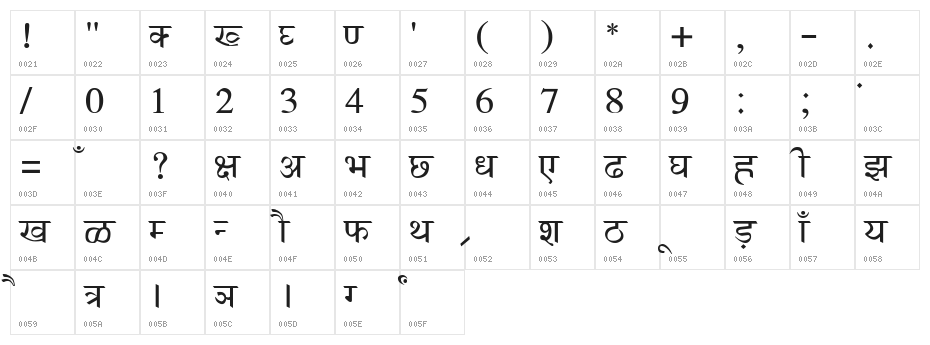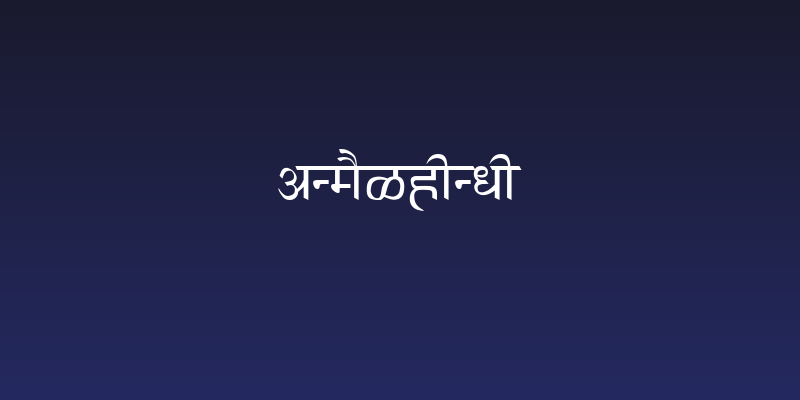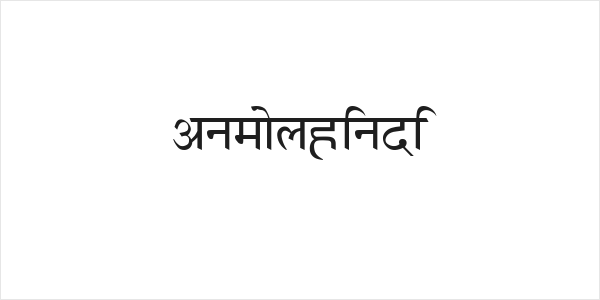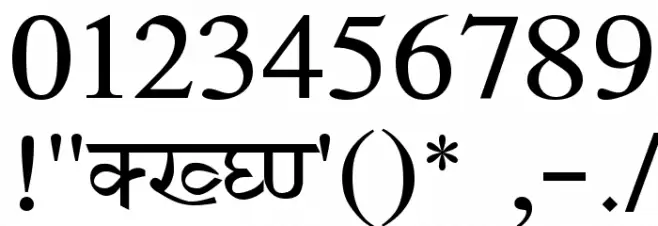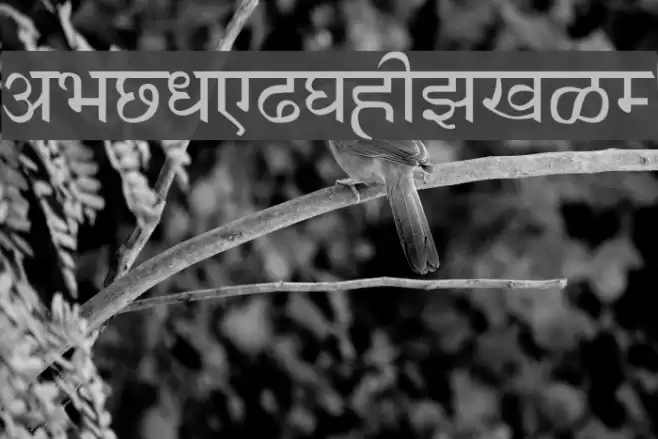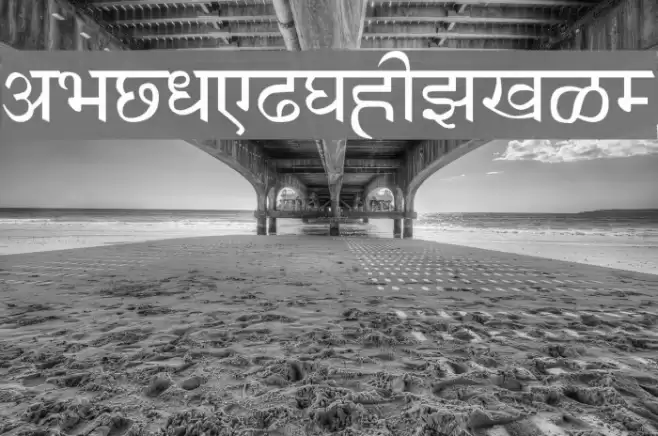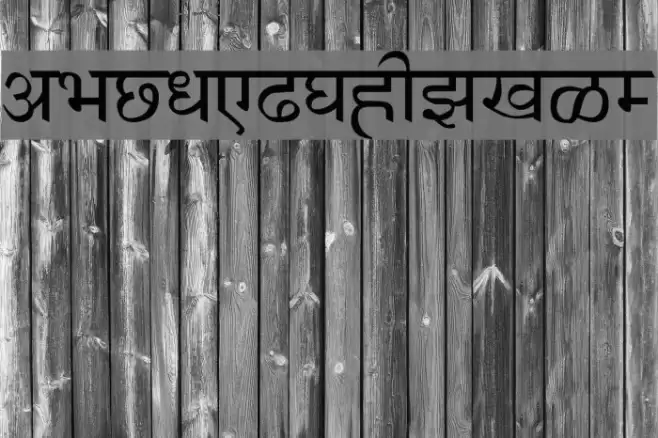
AnmolHindi Font
AnmolHindi Description
This font presents a traditional and elegant style, characterized by its distinct Devanagari script. The characters are well-defined with a balanced stroke weight, offering a clear and readable appearance. The numerals are consistent with the overall design, maintaining a uniform look. The special characters are crafted to complement the script, adding versatility to the font. The spacing between characters is carefully considered, ensuring readability while maintaining the aesthetic appeal. This font is suitable for projects that require a touch of cultural authenticity and sophistication.
| Overall Style | Classic |
| Use Case | Headlines, Body text, Cultural projects |
| Proposed Projects | Ideal for cultural publications, educational materials, and artistic projects that require Devanagari script. |